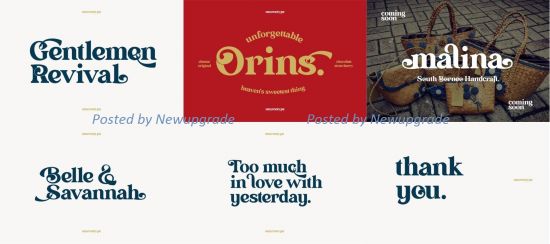
Gentleman Revival is a unique and sophisticated display font. With gorgeous swashes, this font is the perfect fit for all of your logos, branding, social media, and crafty DIY projects.